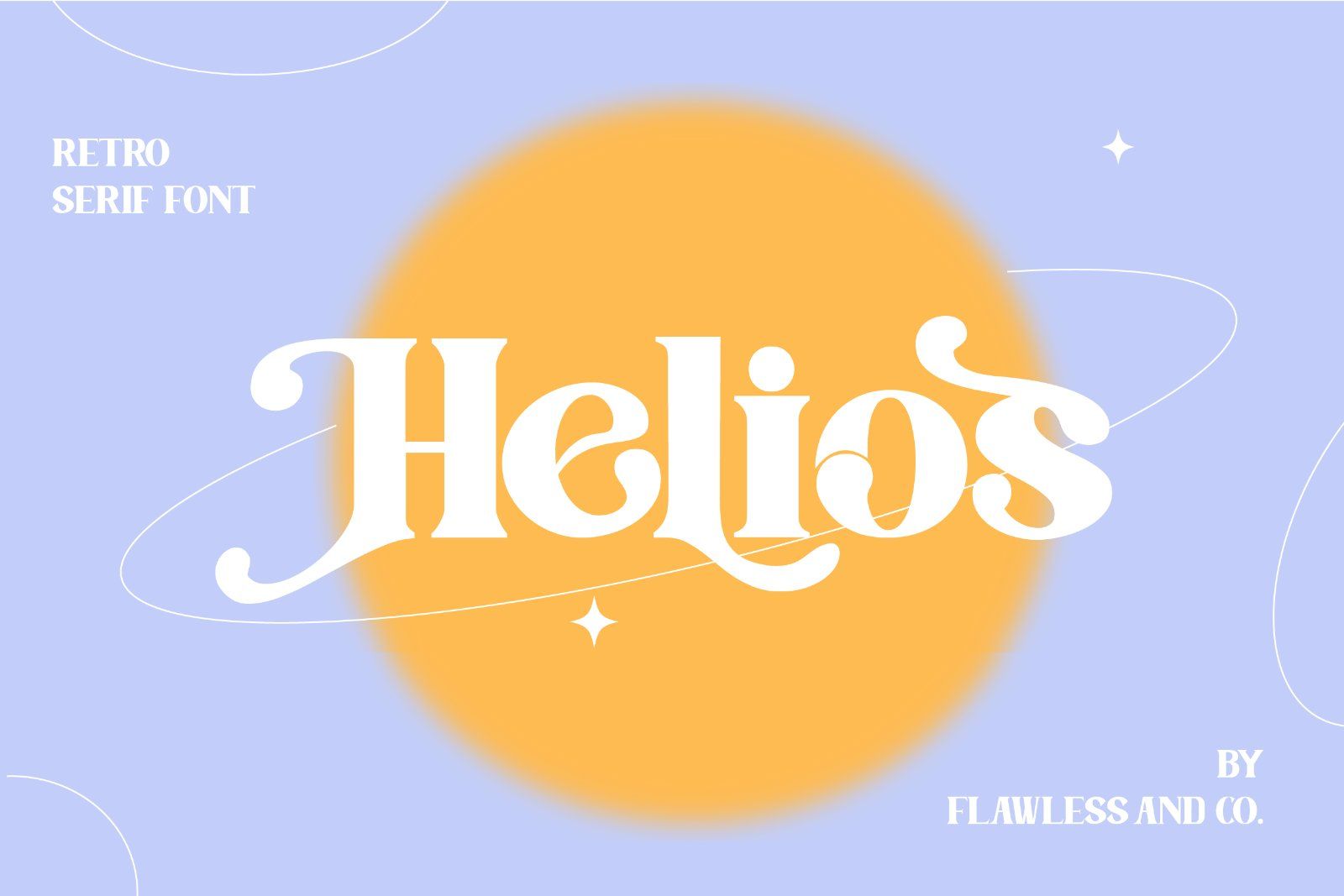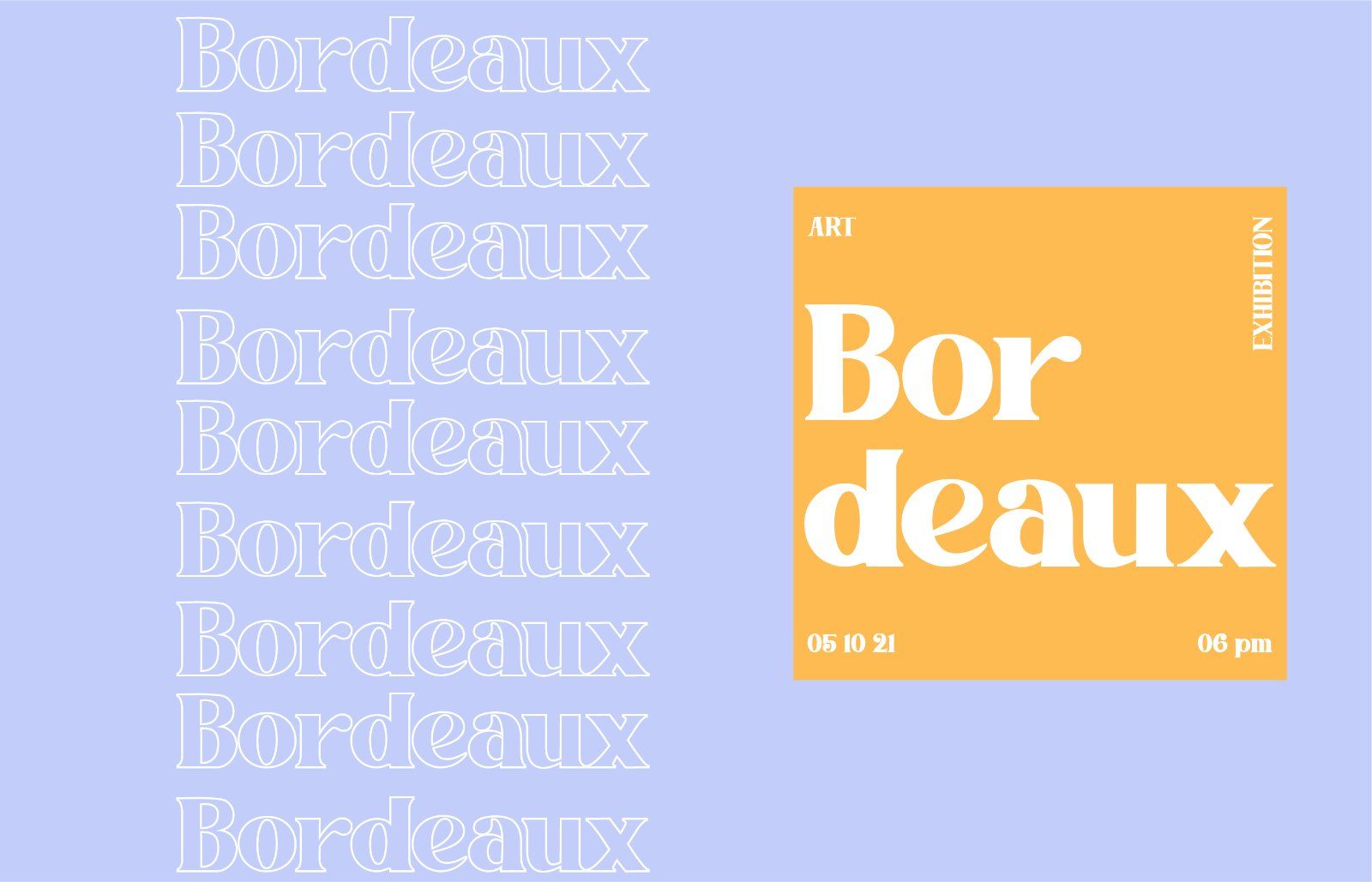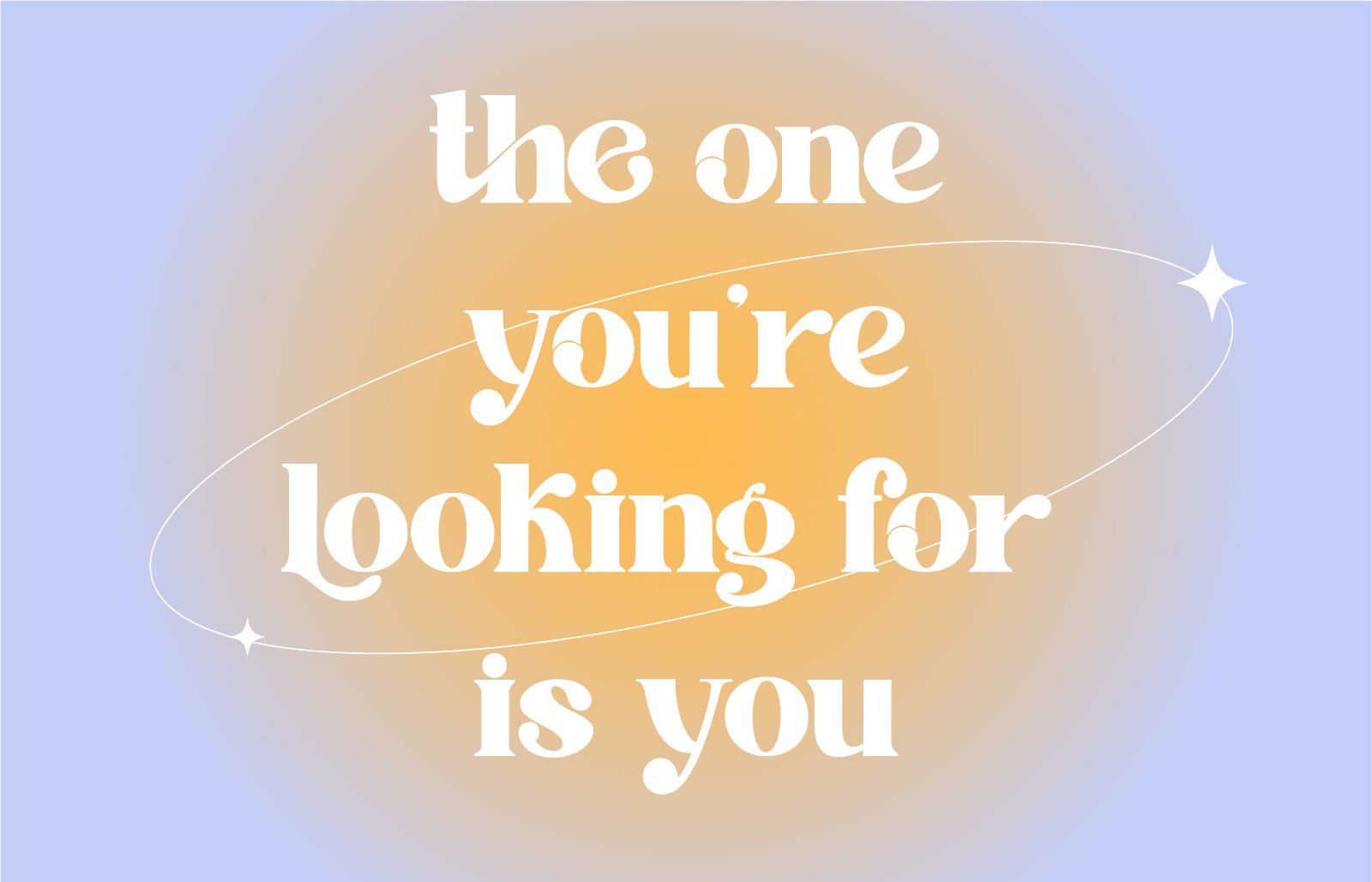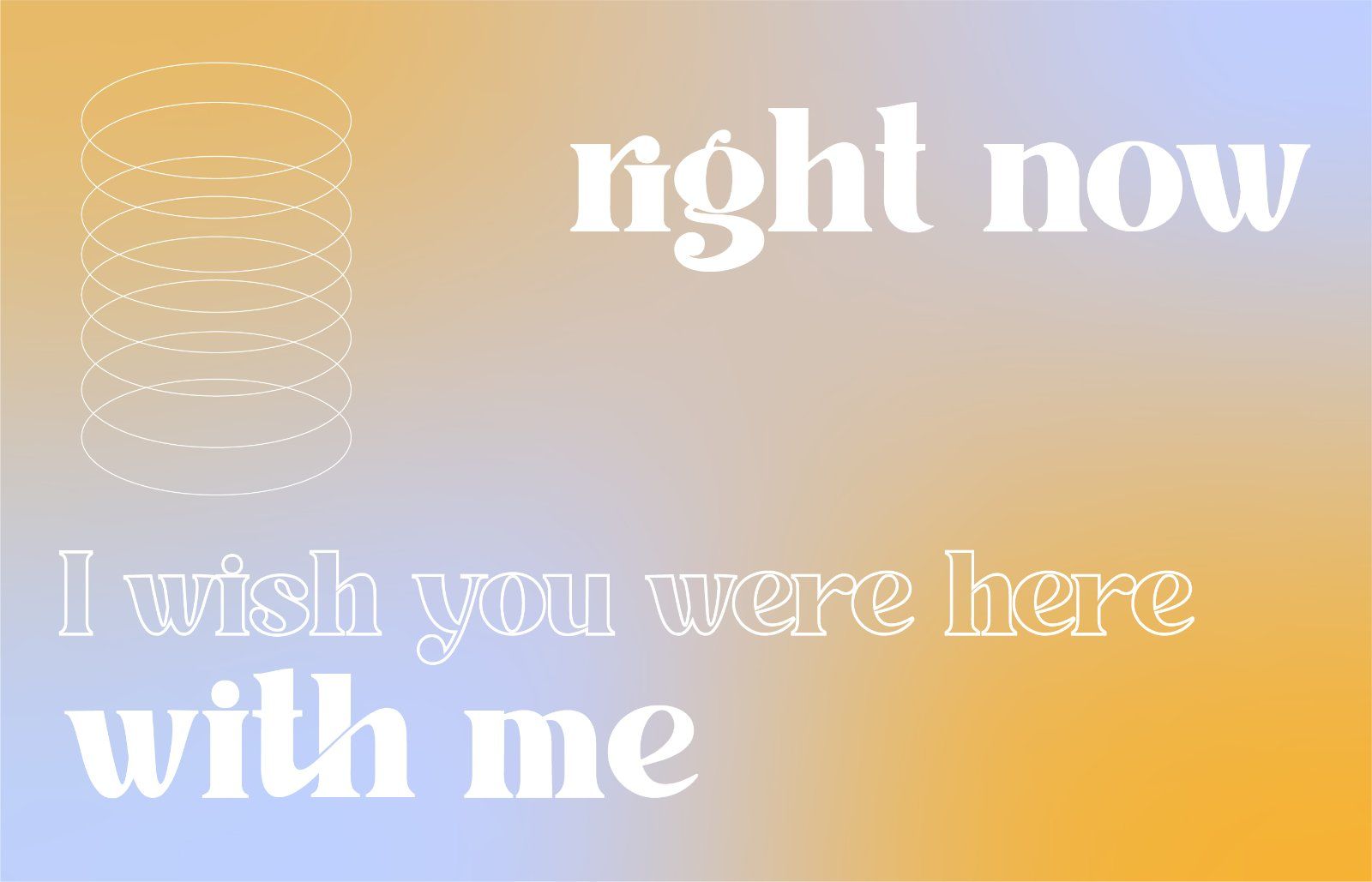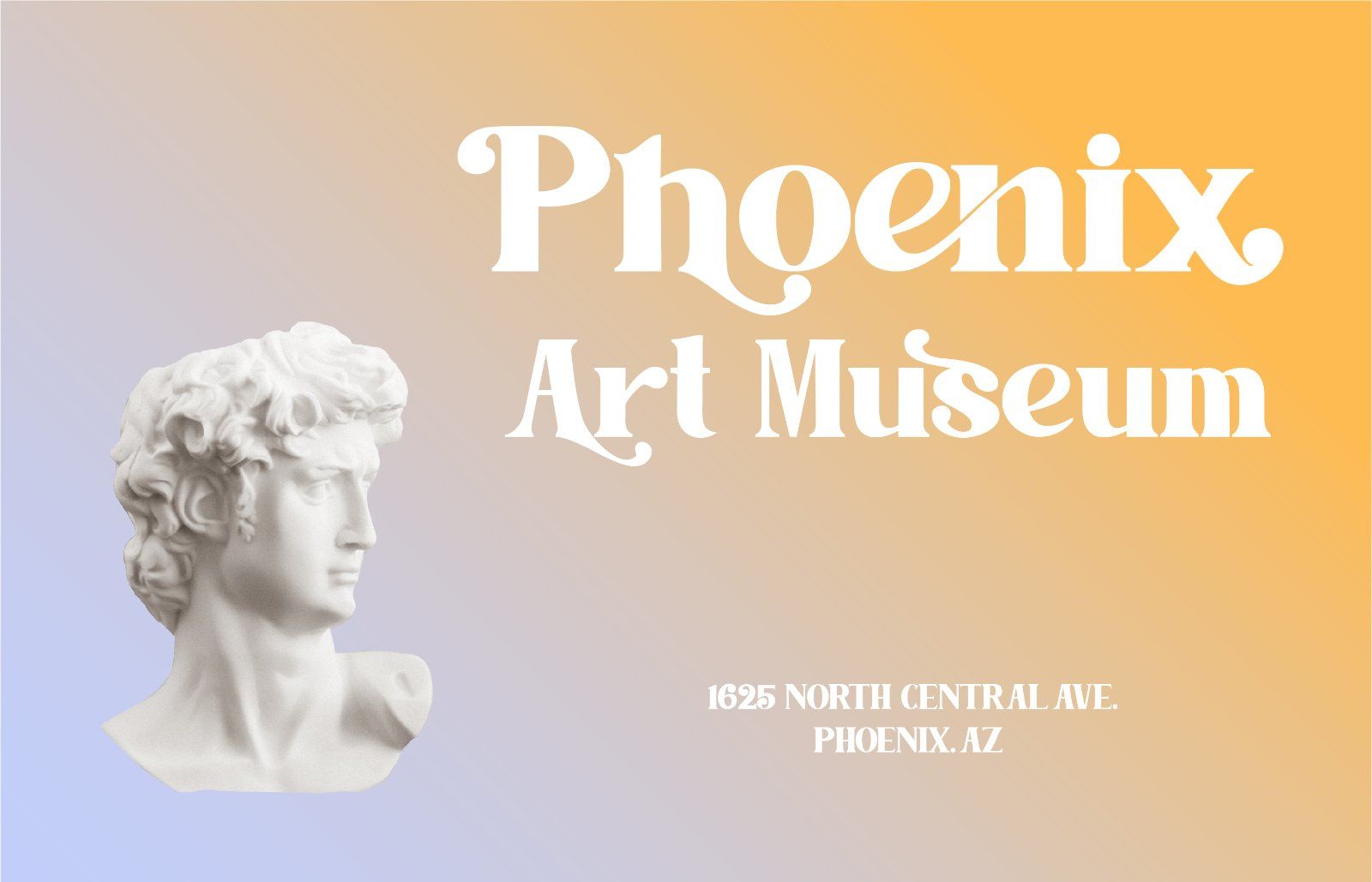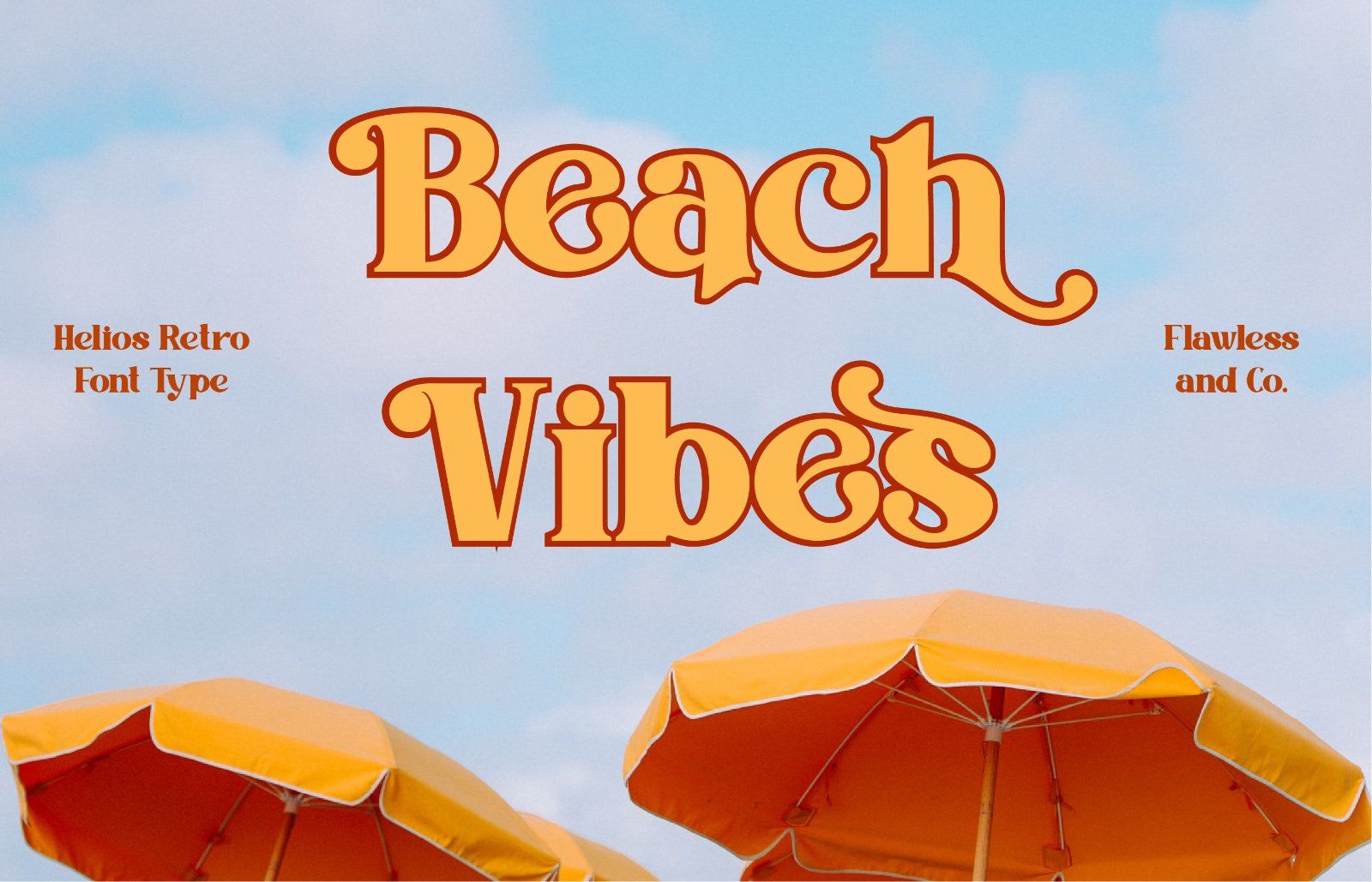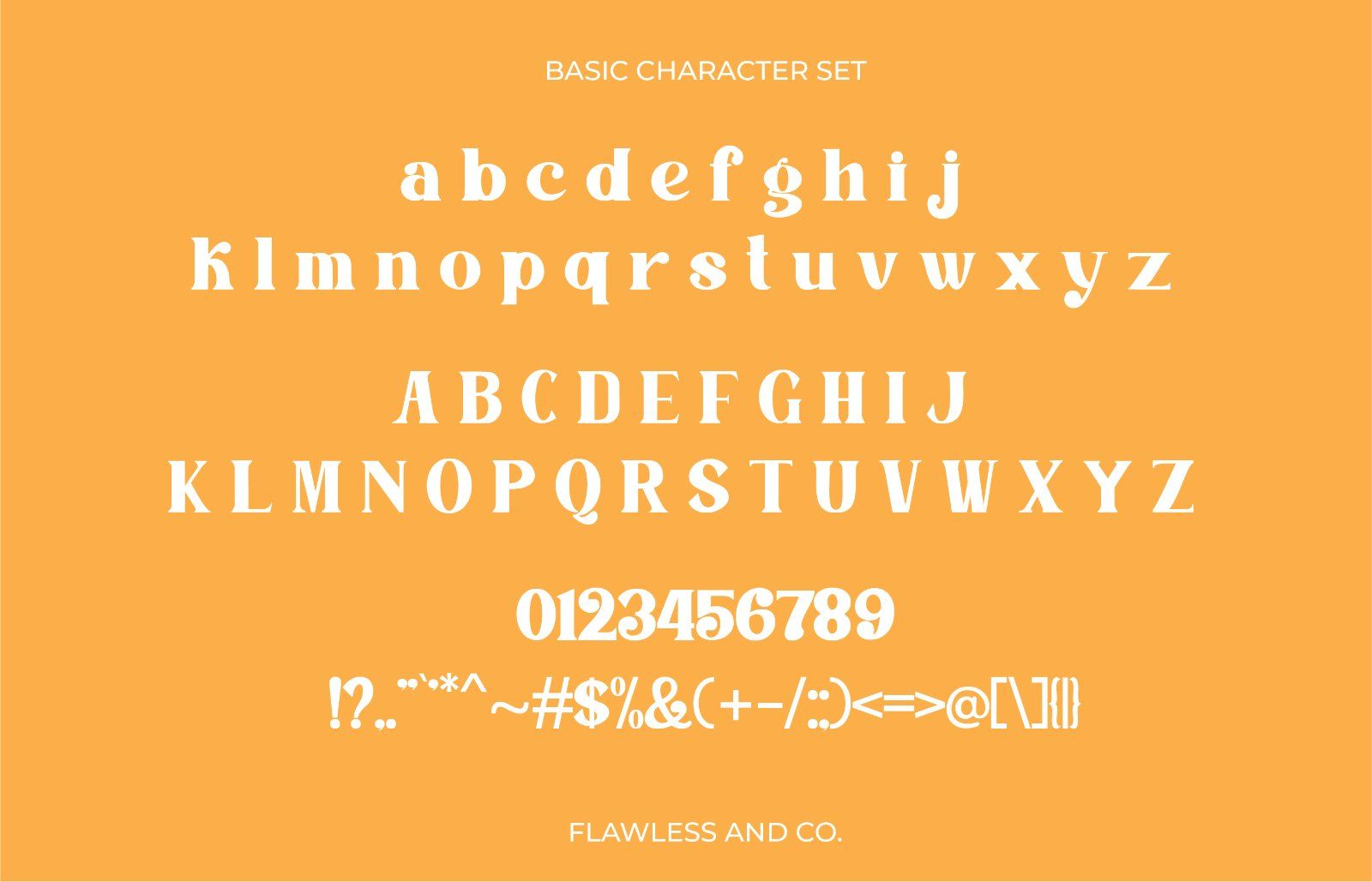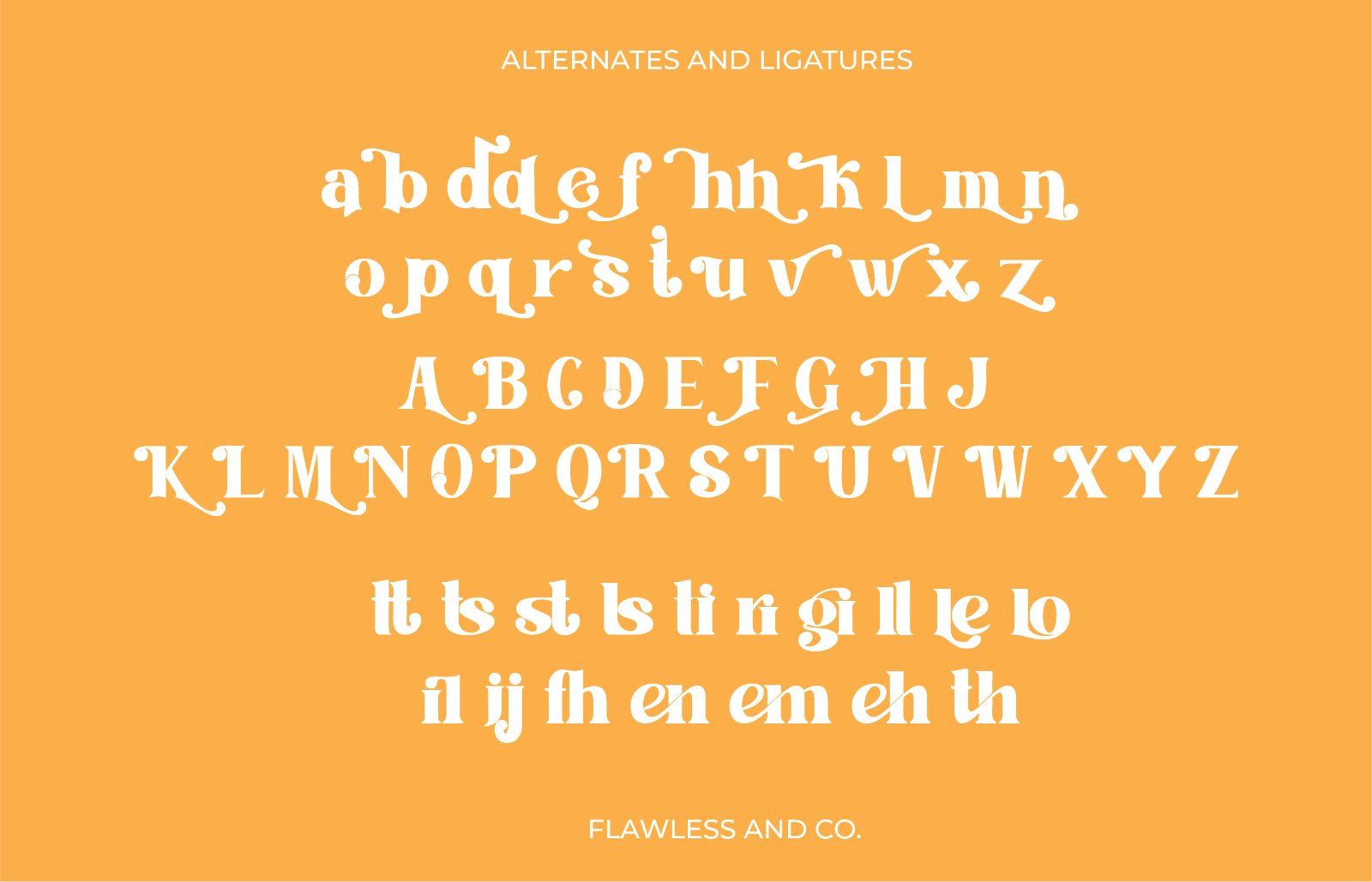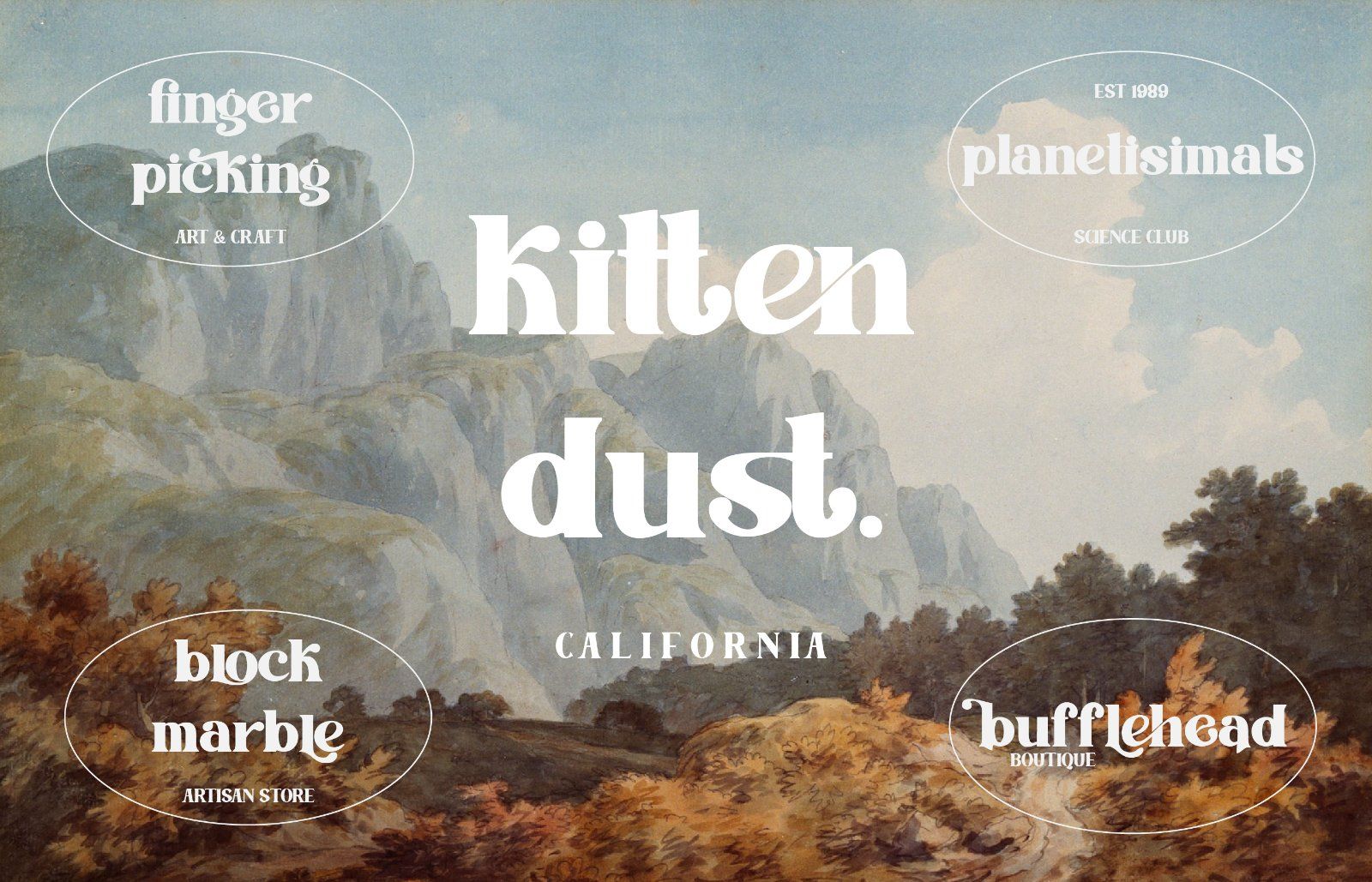
Helios is a bold retro serif font that brings a playful vintage character with a refined and expressive feel. Featuring chunky serif details, distinctive curves, and decorative letterforms, Helios combines classic typography with a fresh retro personality. Its strong presence and unique shapes make it perfect for designs that need a nostalgic yet stylish visual impact.
• Uppercase alphabet A-Z
• Lowercase alphabet a-z
• Alternate Character
• Numbers 0-9
• Some punctuation